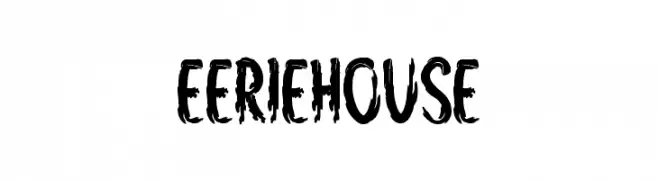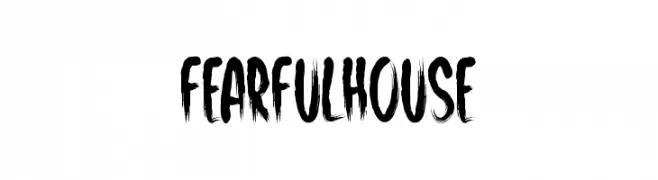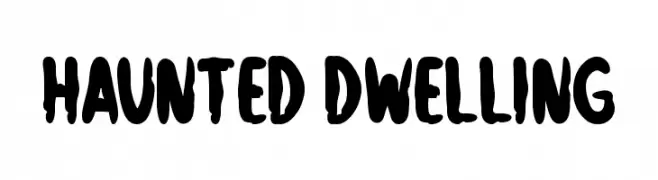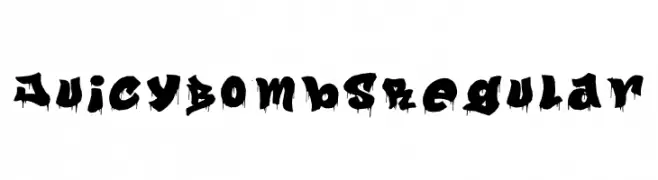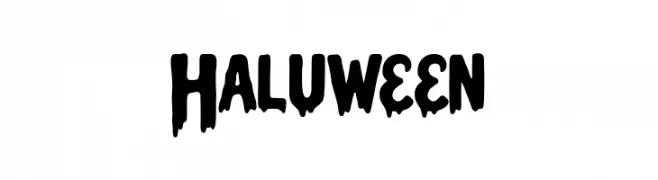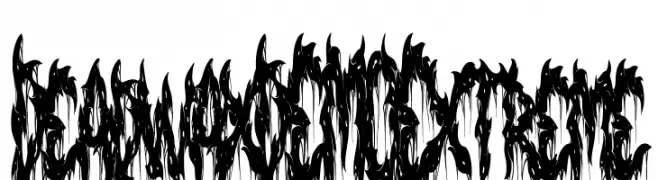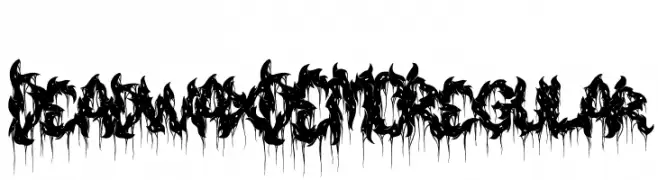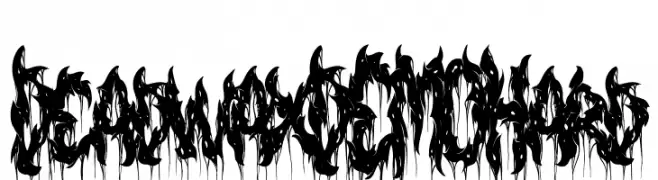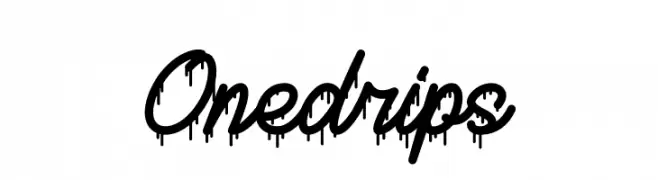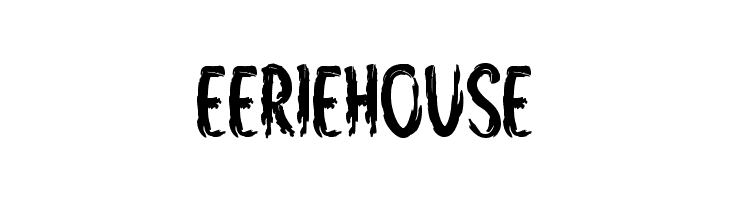
A spooky, distressed font with jagged, dripping characters.
A bold, eerie font with jagged, dripping edges perfect for horror themes.
A bold, spooky font with a dripping effect, ideal for Halloween themes.
A spooky, Halloween-themed decorative font with dripping effects and playful elements.
A bold, graffiti-inspired font with a dripping effect and urban style.
A spooky, dripping font perfect for Halloween themes.
A bold, dripping decorative font with a high-contrast, liquid-like appearance.
A bold, decorative font with a dripping, organic style.
A bold, dripping, liquid-like decorative font with a dark and mysterious style.
A bold, graffiti-inspired font with a dripping effect and cursive style.